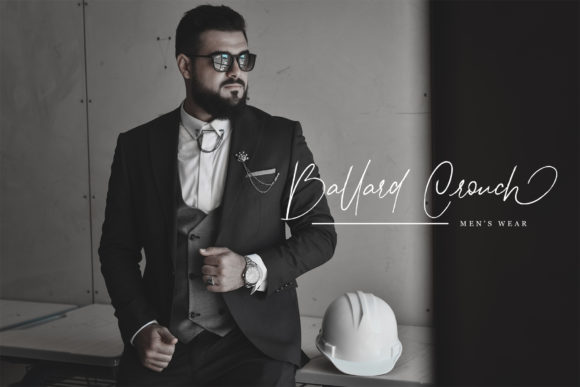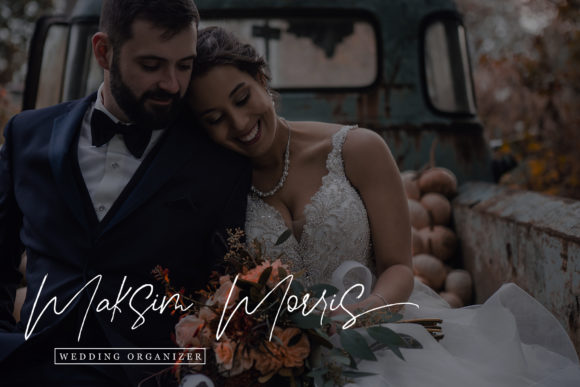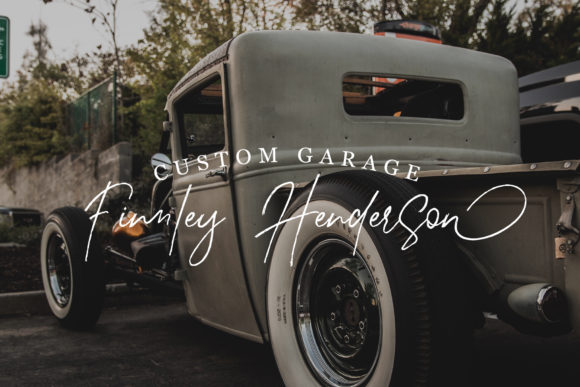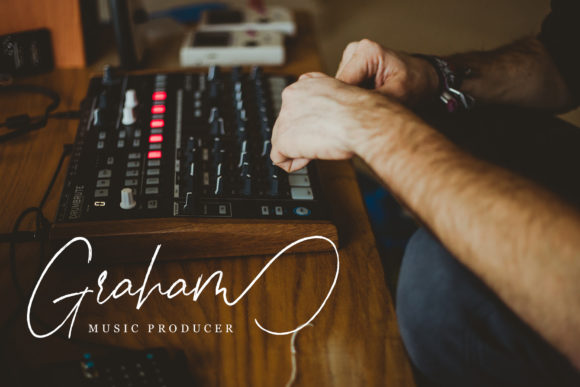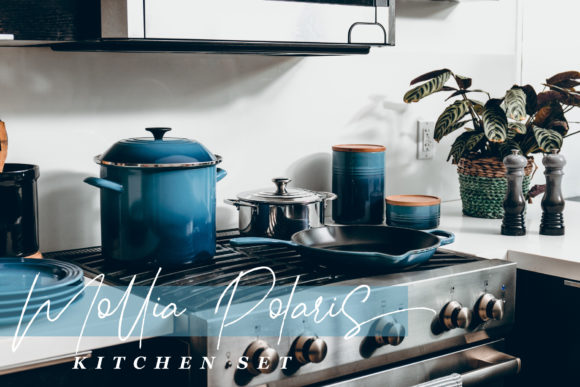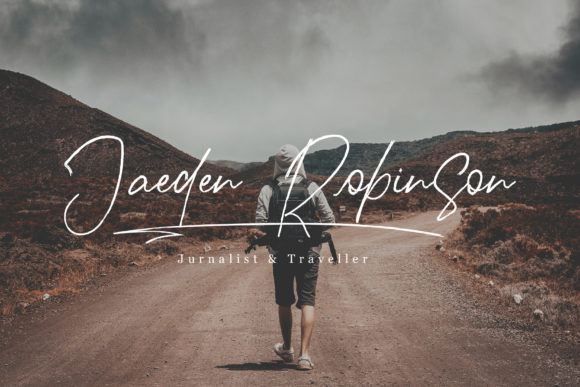
Introduction to Muthacoe Font
You’ve spent hours perfecting your design, tweaking every detail until it’s just right. And then, just as you’re about to hit save, you realize – your text is missing that special something. That’s where the Muthacoe Font comes in, a naturally flowing script font with a bold vibe that can turn any design idea into a piece of art.
As a designer, you’re always on the lookout for high-quality resources to help bring your creative project to life. And let’s be honest, finding the perfect font can be a challenge. But with Muthacoe Font, you can say goodbye to bland designs and hello to a more expressive, engaging visual identity.
Key Features of Muthacoe Font
- High-quality design resource ideal for creative projects requiring unique typography.
- Unique characteristics include a modern, minimalist aesthetic and a wide range of font sizes and styles.
- Perfect for use in logos, branding materials, and other design projects where a distinctive font is required.
Honest Review: Muthacoe Font
I recently had the chance to work with the Muthacoe Font, and I must say it’s been a game-changer for my creative projects. As a designer, I’m always on the lookout for high-quality design resources that can elevate my work, and this font definitely delivers.
Here are some things that work well: ✨ The Muthacoe Font is incredibly versatile, making it perfect for a wide range of creative projects, from logo designs to social media graphics. ✨ The font is also available for free download, which is a huge bonus for designers on a budget. ✨ One of my favorite features is the transparent background, which allows for seamless integration into any design.
- Wide range of creative applications
One limitation I’ve noticed is that the font may not be suitable for larger-scale printing projects. ⚠️ The font’s size and resolution may not hold up well when blown up, which could result in a loss of quality.
Overall, I’m thoroughly impressed with the Muthacoe Font. Its high quality and versatility make it an excellent addition to any designer’s toolkit. While it may have some limitations, I believe it’s a valuable resource for any creative project.
The Muthacoe Font is a versatile and high-quality design resource perfect for any creative project. With its sleek and modern design, it’s an ideal choice for various applications.
Tips for Getting the Most Out of the Muthacoe Font
Experiment with different font sizes and colors to create a unique and eye-catching design. You can also combine the Muthacoe Font with other design elements for a more creative project.
The Muthacoe Font is perfect for various applications, including business cards, brochures, posters, and social media graphics. Its high-quality design and transparent background make it an ideal choice for any creative project.